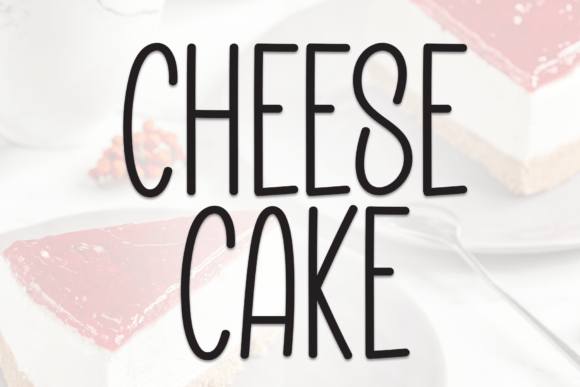
Introducing Cheese Cake Font: The Sweetest Addition to Your Designs
Are you tired of using the same old fonts in your designs? Do you want to add a touch of warmth and playfulness to your creations? Look no further than Cheese Cake Font, a charming and approachable handwritten display font that’s sure to delight. In this article, we’ll take a closer look at the unique features of Cheese Cake Font and how it can elevate your designs to the next level.
What Makes Cheese Cake Font So Special?
Cheese Cake Font is a one-of-a-kind handwritten display font that exudes an irresistible sweetness and playfulness. Its charming and approachable nature makes it perfect for a wide range of design applications, from wedding invitations and greeting cards to social media graphics and website headers.
One of the standout features of Cheese Cake Font is its unique blend of elegance and whimsy. The font’s flowing curves and rounded edges give it a soft, friendly feel that’s sure to capture the hearts of your audience. Whether you’re looking to create a romantic and sophisticated design or a fun and playful one, Cheese Cake Font is the perfect choice.
The Benefits of Using Cheese Cake Font
So why should you choose Cheese Cake Font for your designs? Here are just a few benefits of using this amazing font:
- Adds warmth and personality: Cheese Cake Font is the perfect way to add a touch of warmth and personality to your designs. Its charming and approachable nature makes it ideal for creating designs that feel friendly and inviting.
- Perfect for playful designs: If you’re looking to create a design that stands out from the crowd, Cheese Cake Font is the perfect choice. Its playful and whimsical nature makes it ideal for designs that need a bit of fun and personality.
- Versatile: Cheese Cake Font is incredibly versatile, making it perfect for a wide range of design applications. Use it for wedding invitations, greeting cards, social media graphics, website headers, and more.
- Easy to read: Despite its playful nature, Cheese Cake Font is incredibly easy to read. This makes it perfect for designs that need to communicate a message clearly and effectively.
How to Use Cheese Cake Font in Your Designs
Using Cheese Cake Font in your designs is incredibly easy. Here are a few tips to get you started:
- Pair it with bold fonts: For a striking contrast, pair Cheese Cake Font with bold fonts like Arial Black or Impact. This will create a beautiful visual hierarchy that’s sure to grab attention.
- Use it for headings: Cheese Cake Font is perfect for headings and titles. Use it to add a touch of personality and whimsy to your designs.
- Add some flair with swashes: Cheese Cake Font comes with a range of swashes and flourishes that can add an extra touch of elegance and sophistication to your designs.
Design Ideas to Get You Started
Need some inspiration for using Cheese Cake Font in your designs? Here are a few ideas to get you started:
- Wedding invitations: Cheese Cake Font is perfect for wedding invitations. Its romantic and whimsical nature makes it ideal for creating beautiful and memorable invitations.
- Greeting cards: Cheese Cake Font is also perfect for greeting cards. Use it to create fun and playful cards for birthdays, holidays, and special occasions.
- Social media graphics: Cheese Cake Font is a great choice for social media graphics. Use it to create eye-catching and engaging graphics that will help you stand out from the crowd.
In conclusion, Cheese Cake Font is a charming and approachable handwritten display font that’s perfect for adding a touch of warmth and playfulness to your designs. Its unique blend of elegance and whimsy makes it ideal for a wide range of design applications, from wedding invitations and greeting cards to social media graphics and website headers. With its ease of use, versatility, and irresistible sweetness, Cheese Cake Font is sure to become your go-to resource for sprucing up your designs.